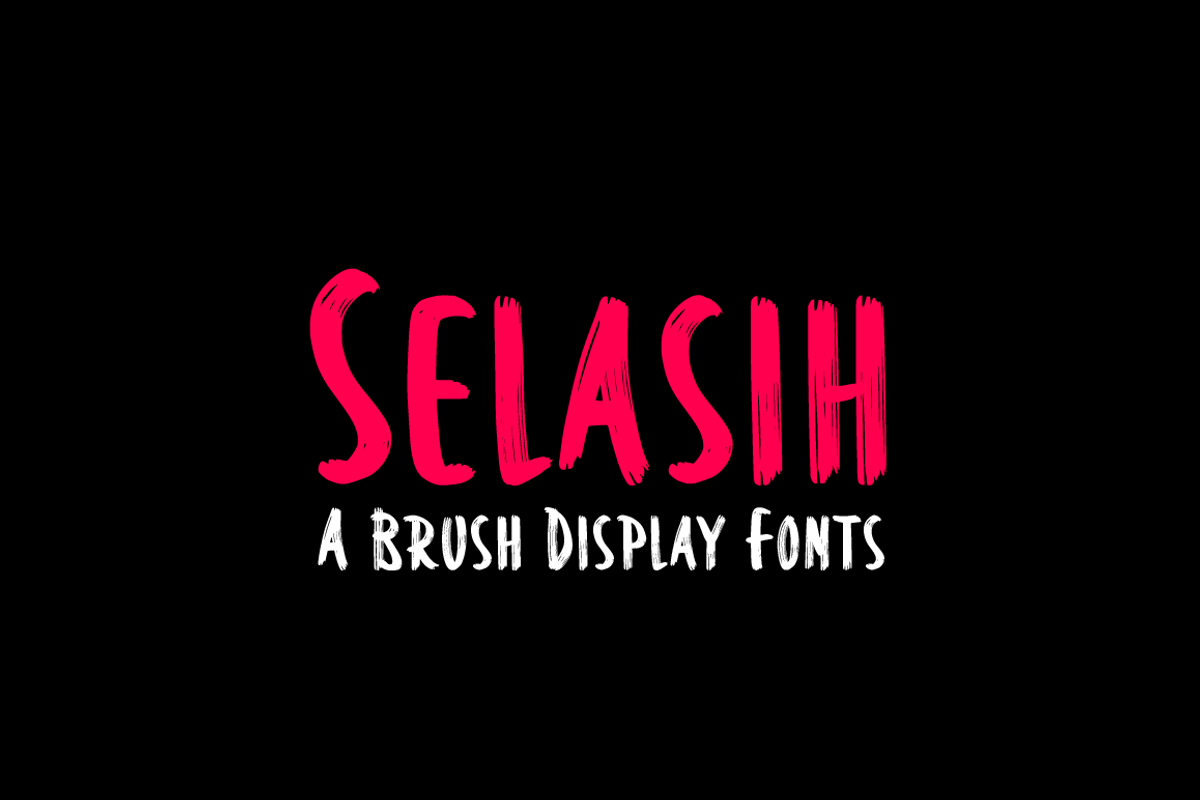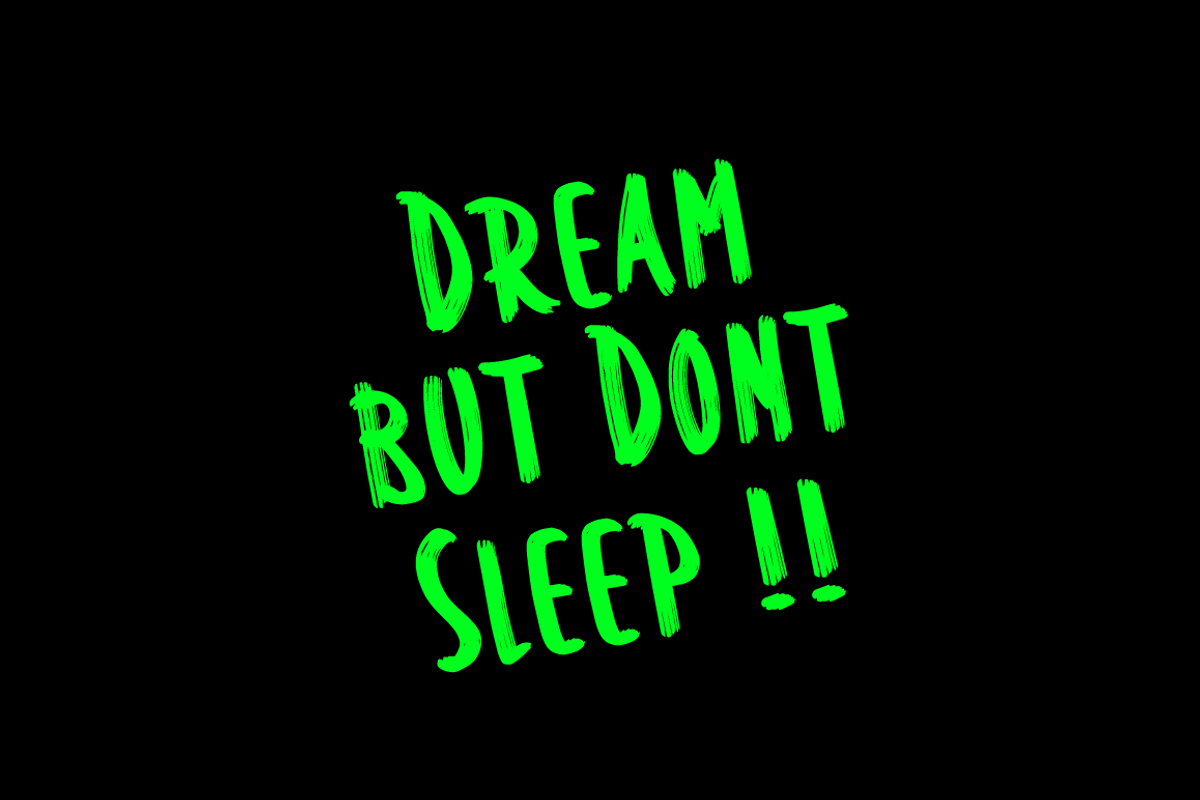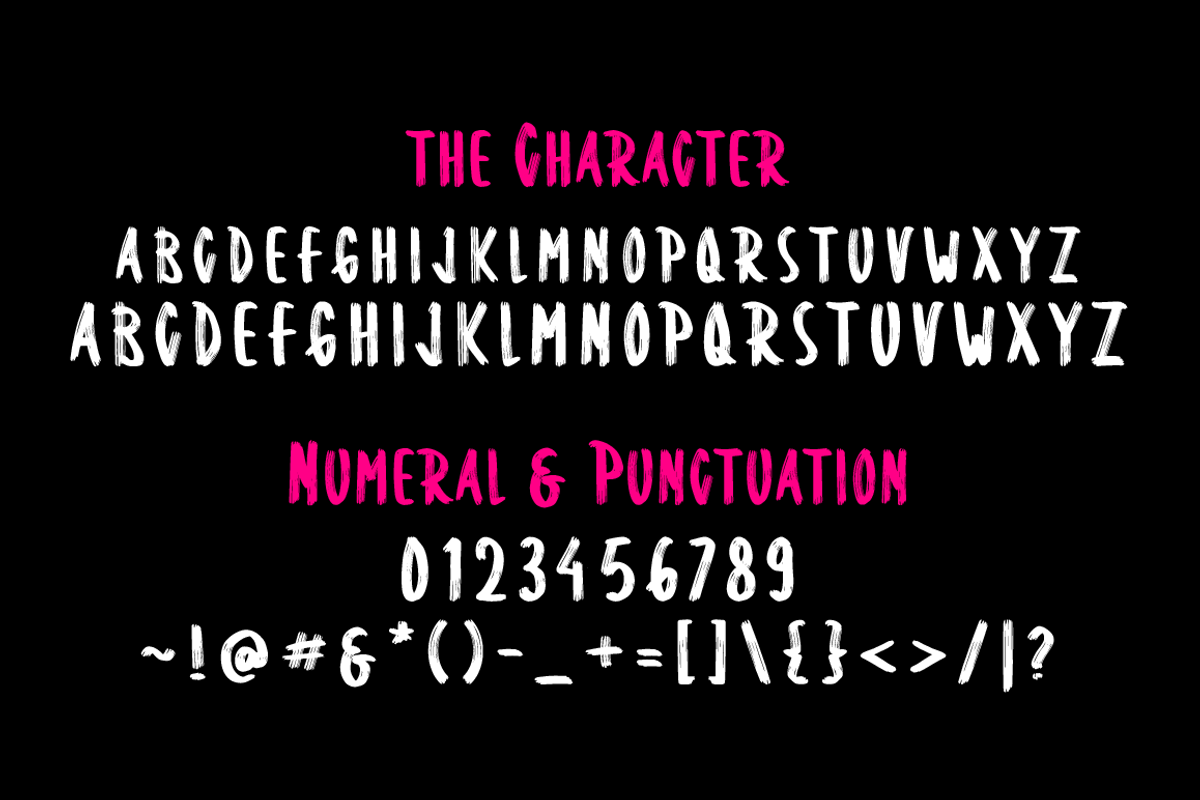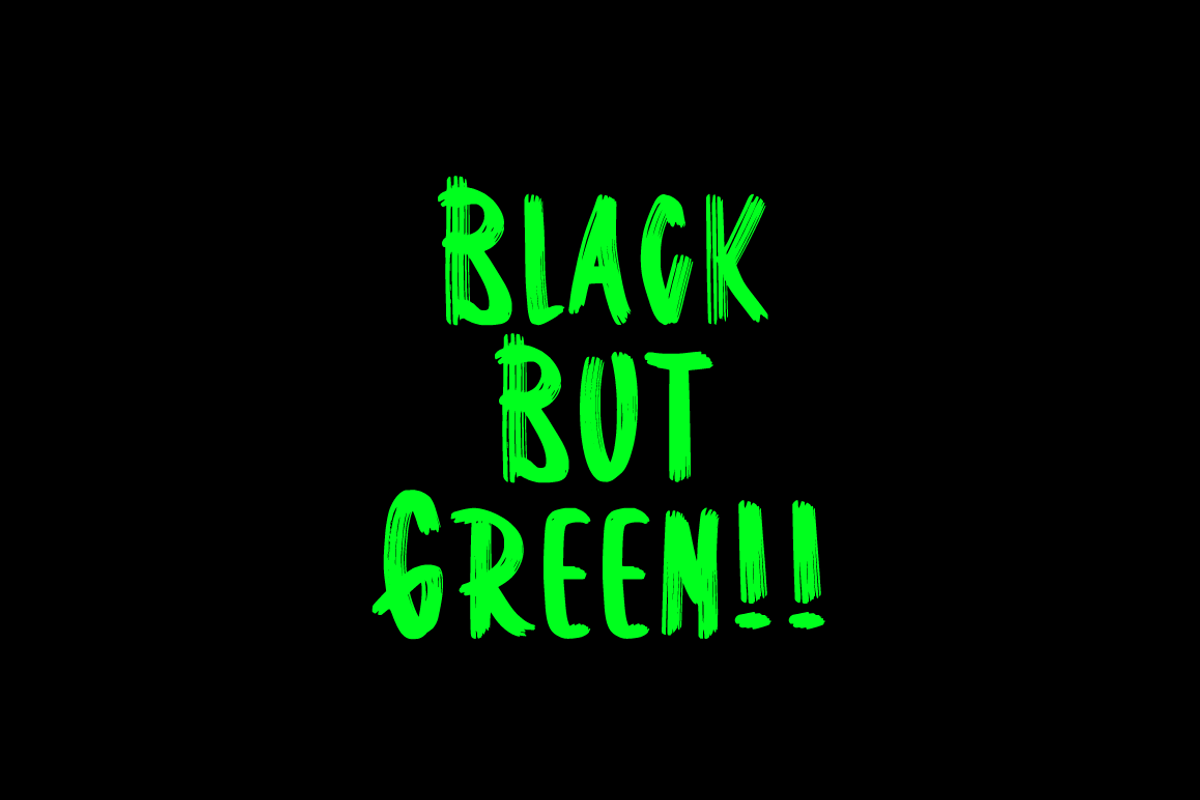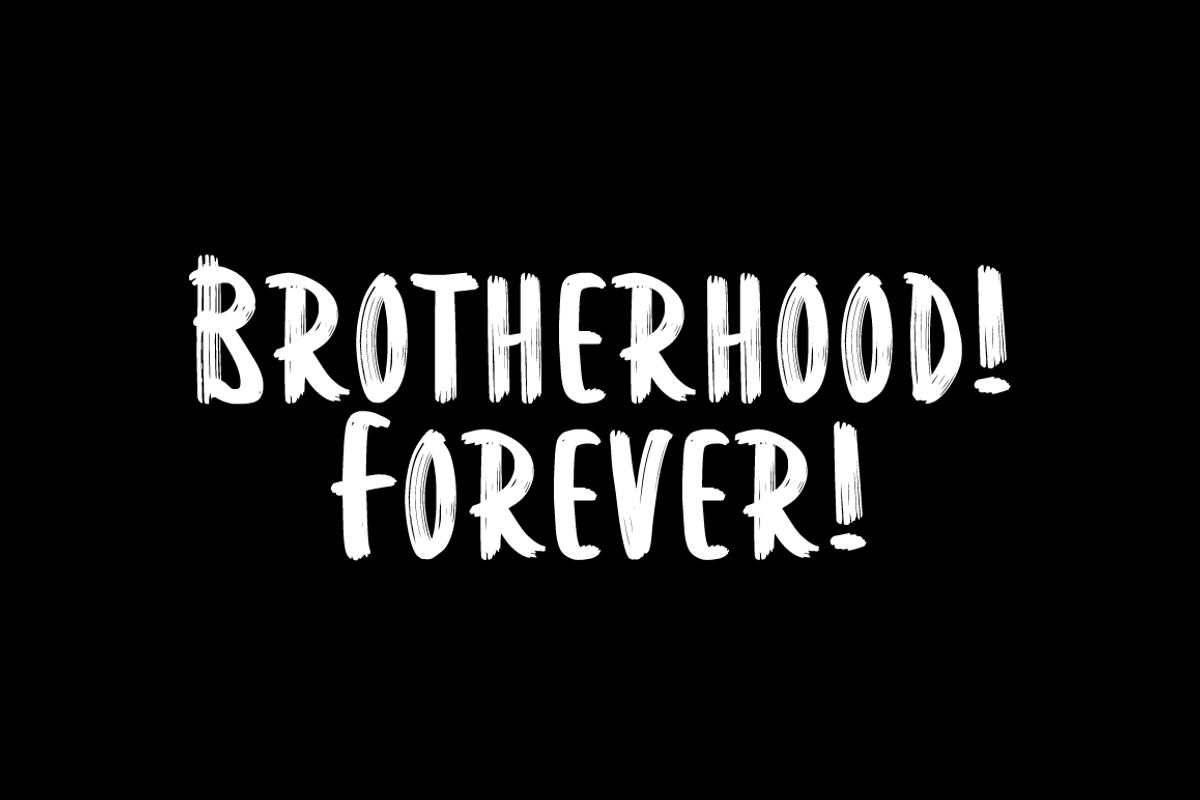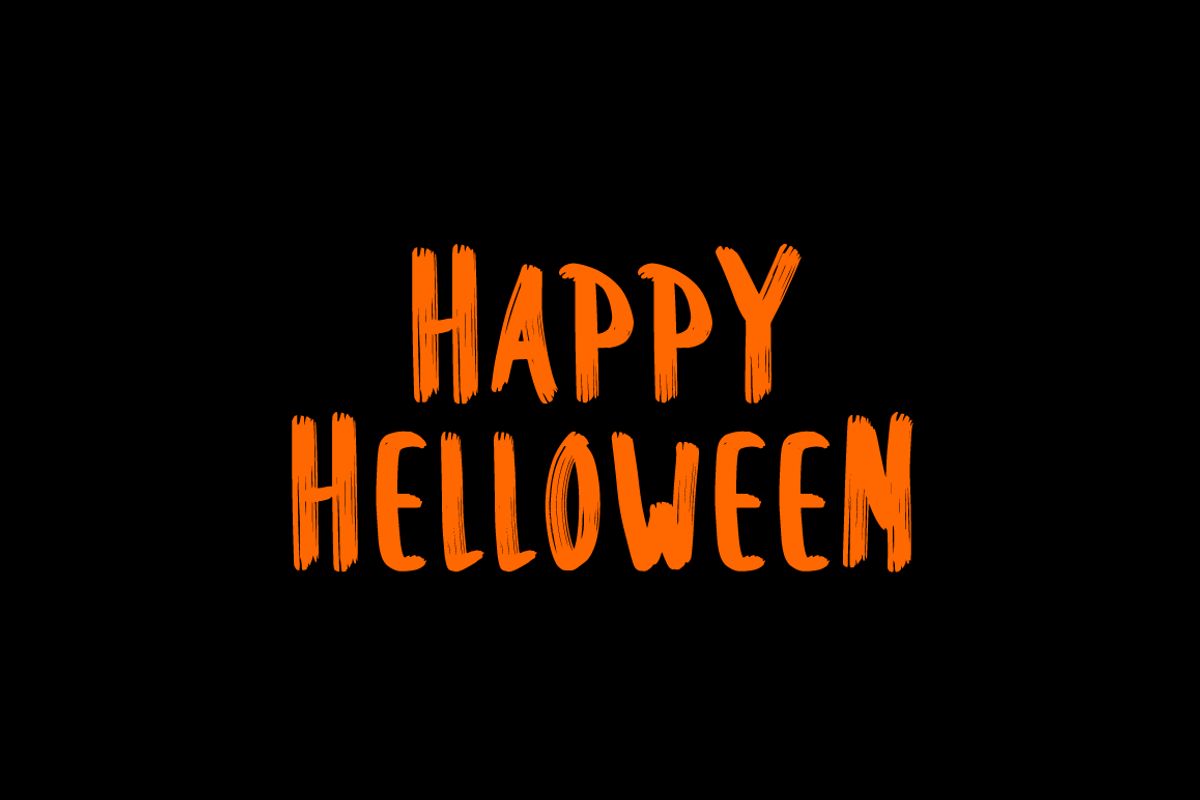
Selasih - Brushstroke Font
Selasih is a Brushstroke Display font that will make your designs look unique and fun. It's perfect for labels, quotes, posters, DIY projects, branding, packaging, greeting cards, websites, photography overlays, signs, window art, scrapbooking, tags and so much more!